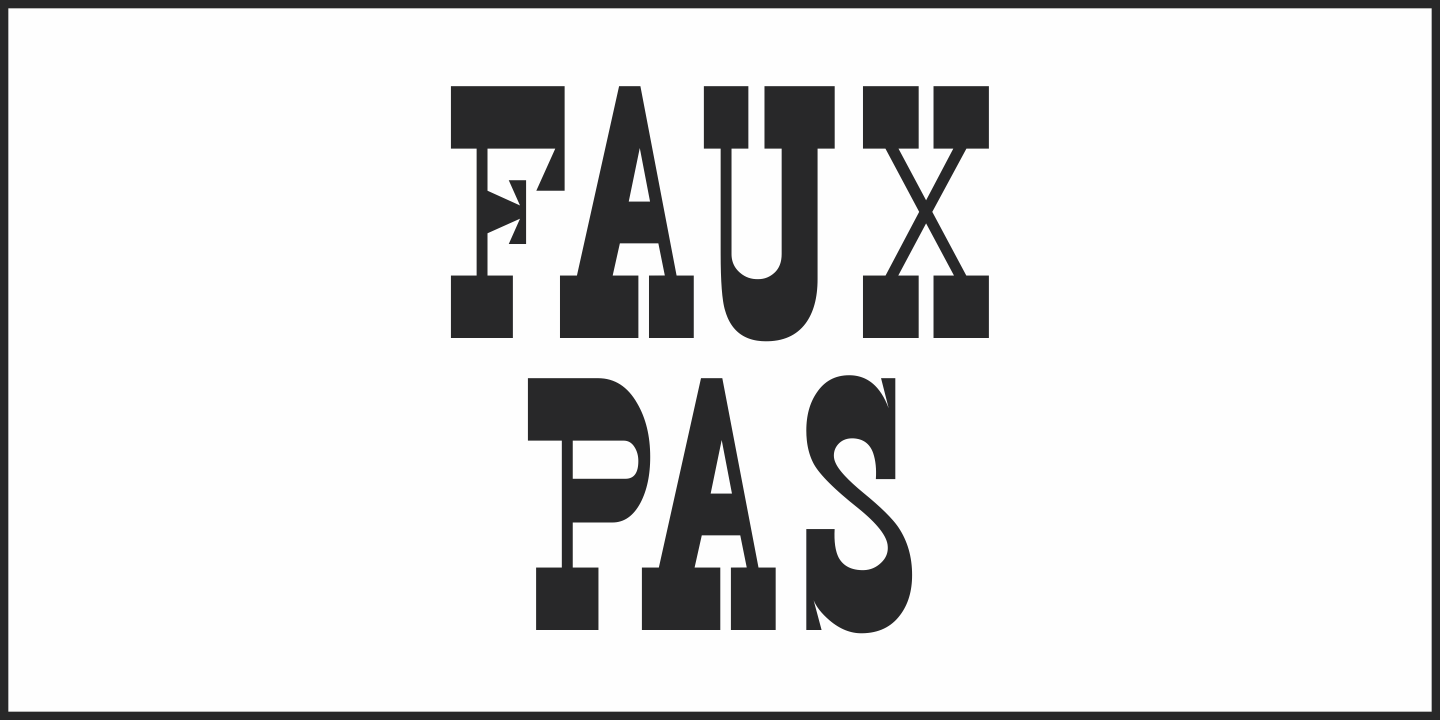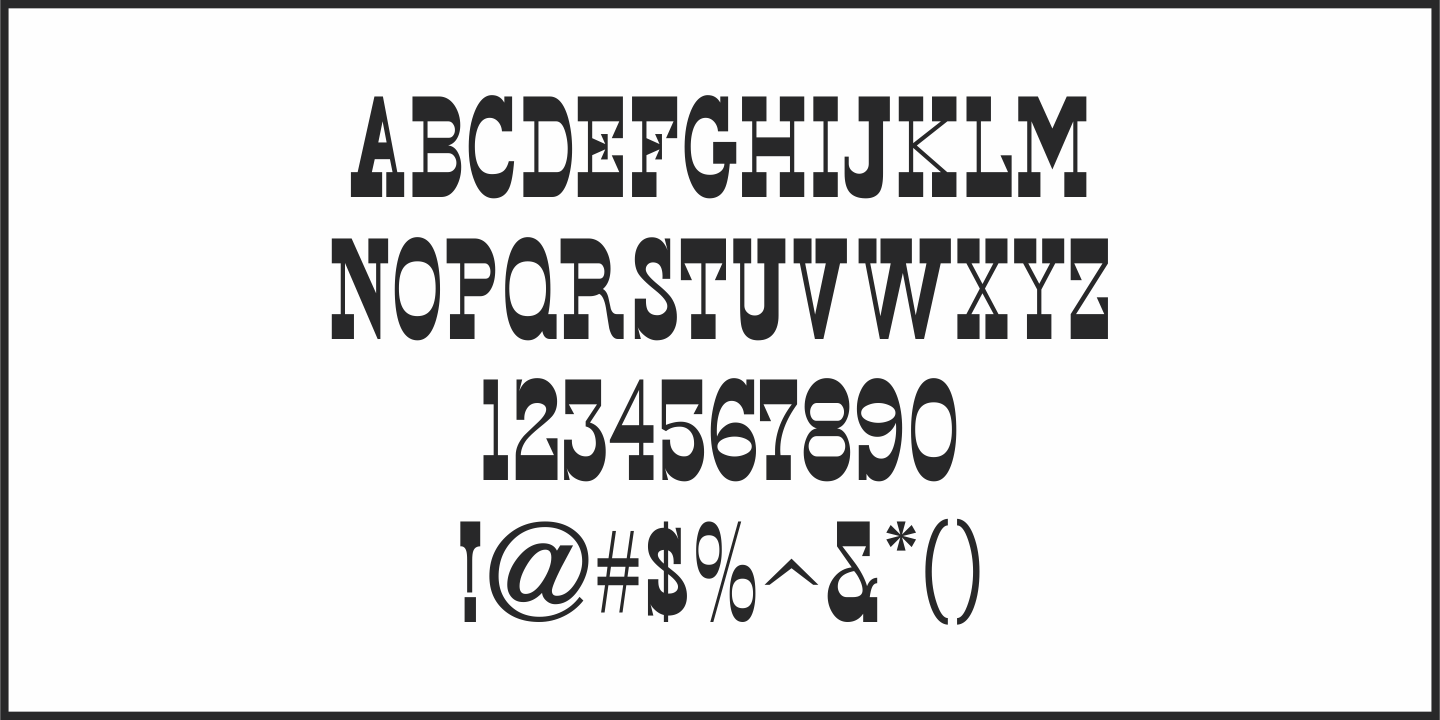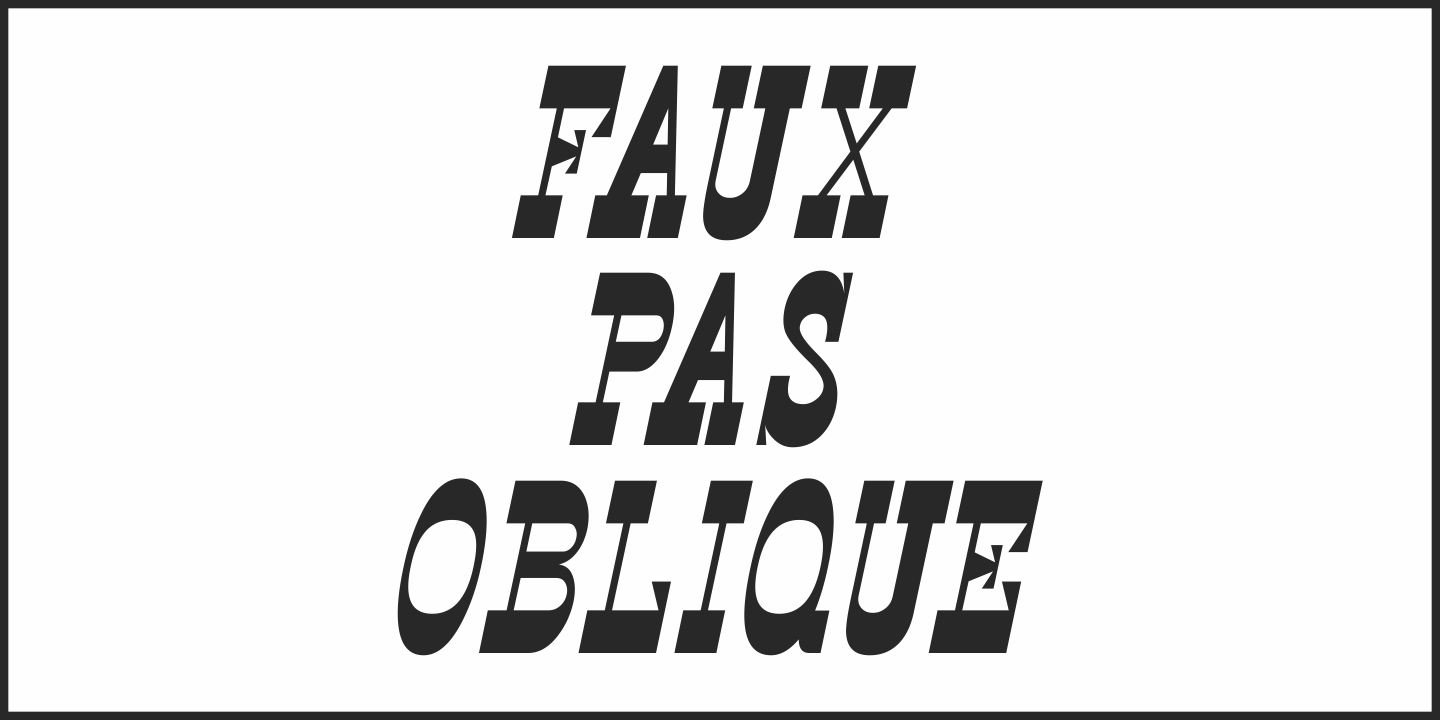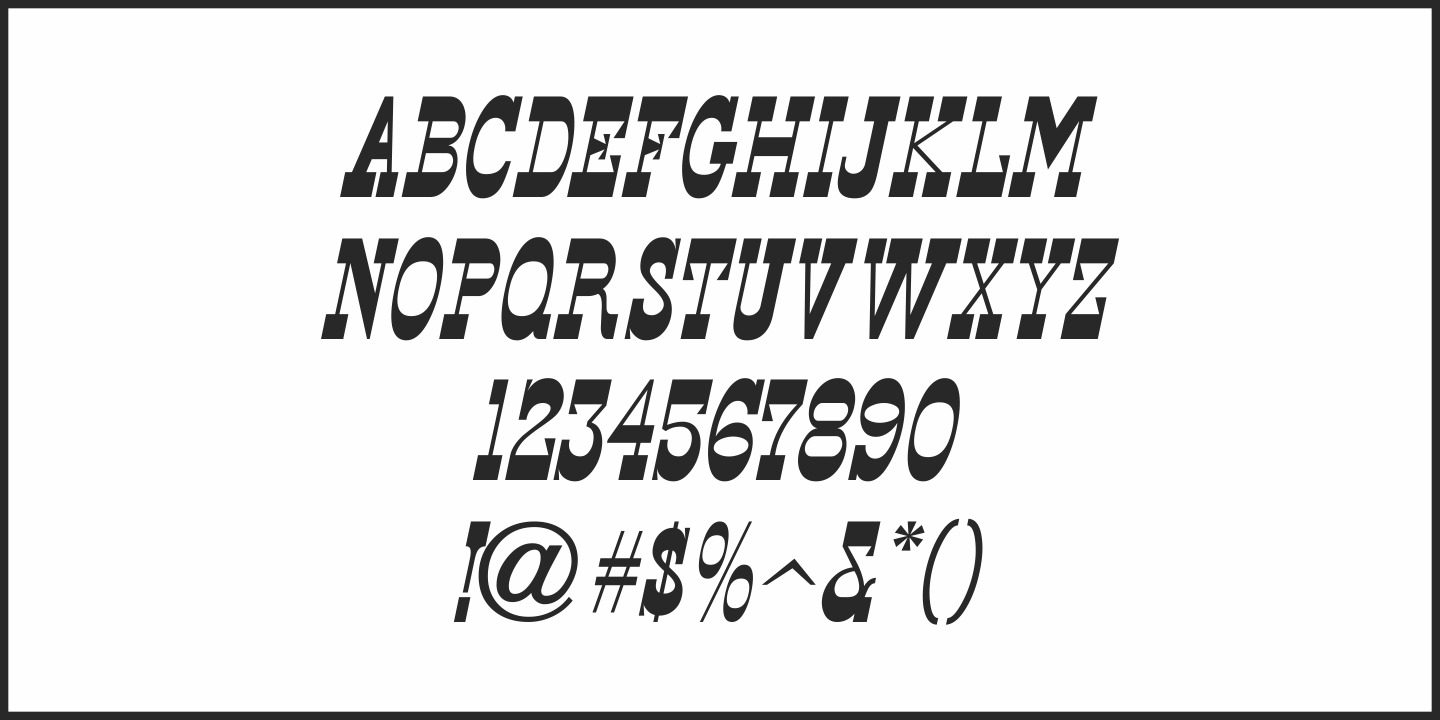
Faux Pas
The lettering found on an 1878 Salt Lake City advertisement for the Forepaugh's Circus inspired Faux Pas JNL, which is a bit of a pun on the circus' name and also a commentary on how this unusual lettering style seems to break all of the rules on stroke width and balance.
According to Wikipedia:
'Adam John Forepaugh (February 28, 1831 - January 22, 1890) was an American entrepreneur, businessman, and circus owner.
Forepaugh owned and operated a circus from 1865 through 1890 under various names including Forepaugh's Circus, The Great Forepaugh Show, The Adam Forepaugh Circus, and Forepaugh & The Wild West.
In 1889, Forepaugh sold his circus acts to James Anthony Bailey and James E. Cooper and he sold his railroad cars to the Ringling Brothers.
The Ringlings used the equipment to transform their circus from a small animal-powered production to a huge rail-powered behemoth, which later purchased the Barnum & Bailey Circus. Thus, in liquidating his circus assets, he indirectly contributed to the demise of his arch-rival.”
Faux Pas JNL is available in both regular and oblique versions.